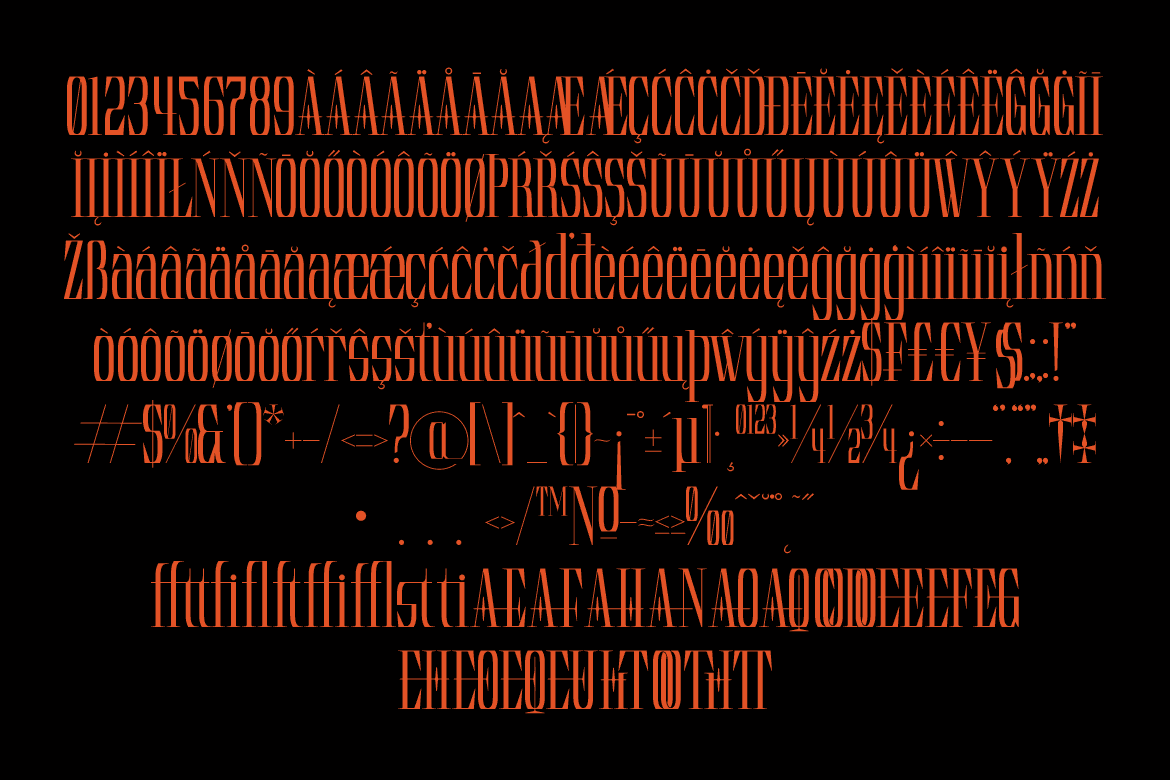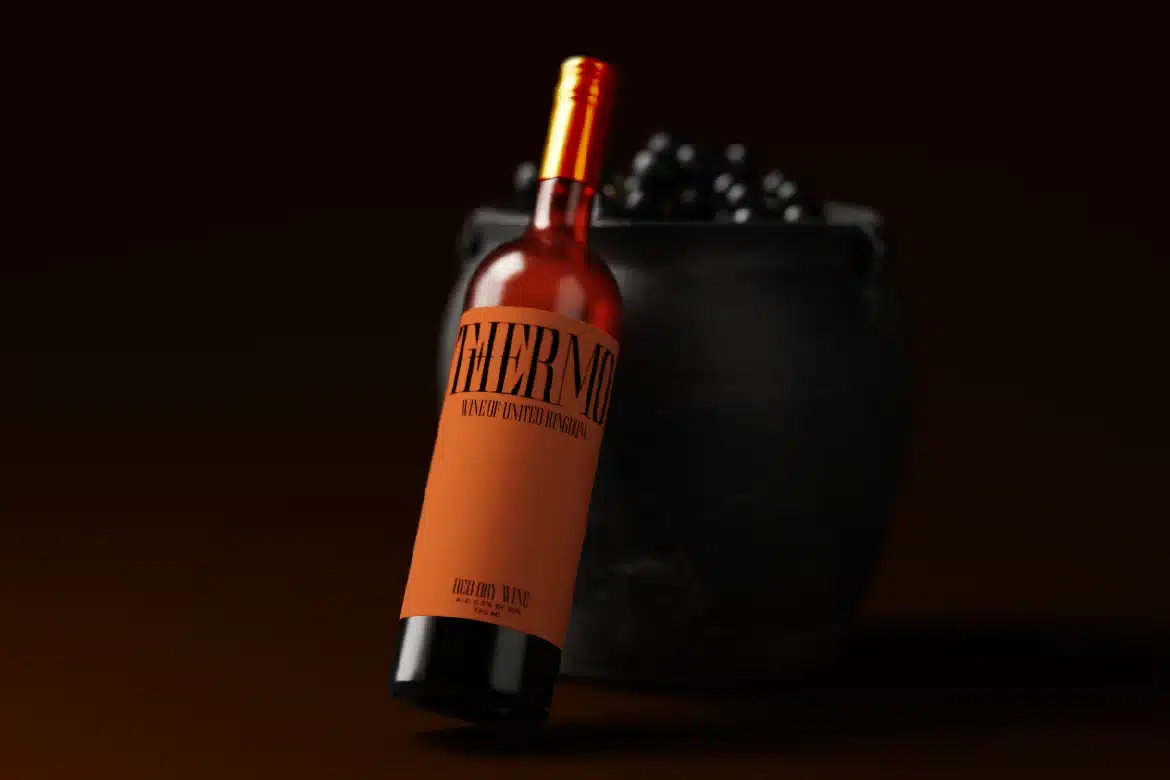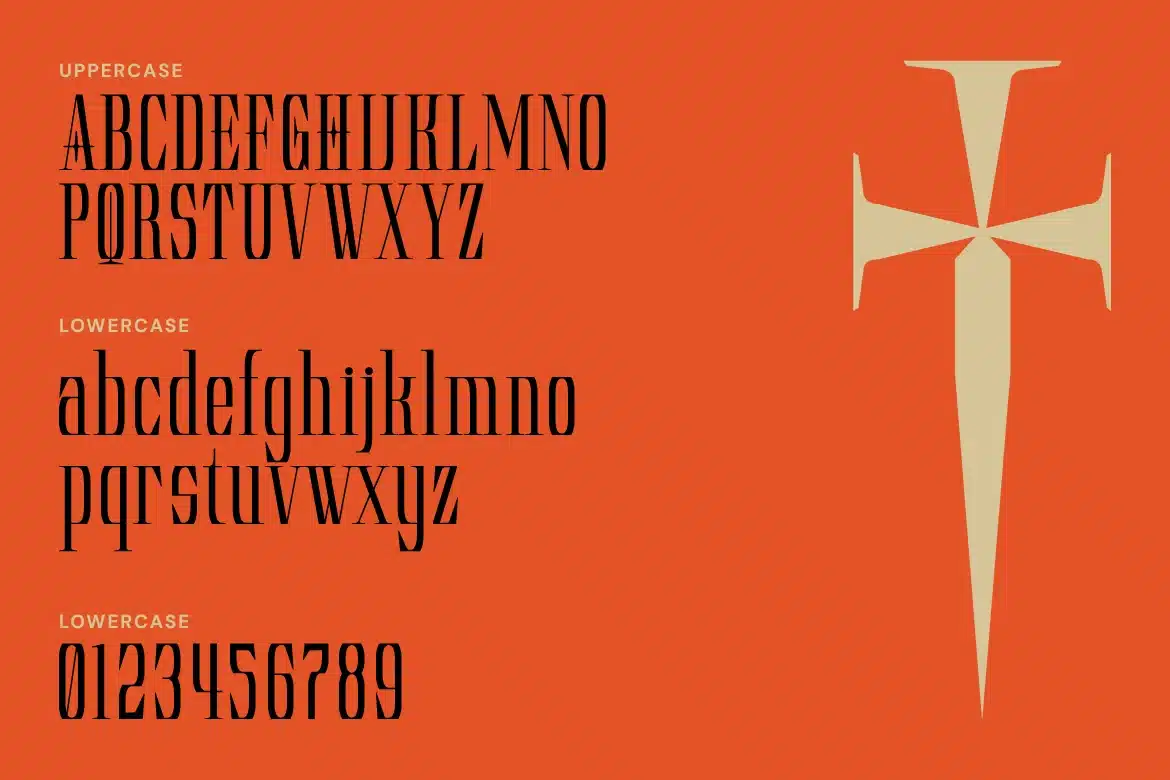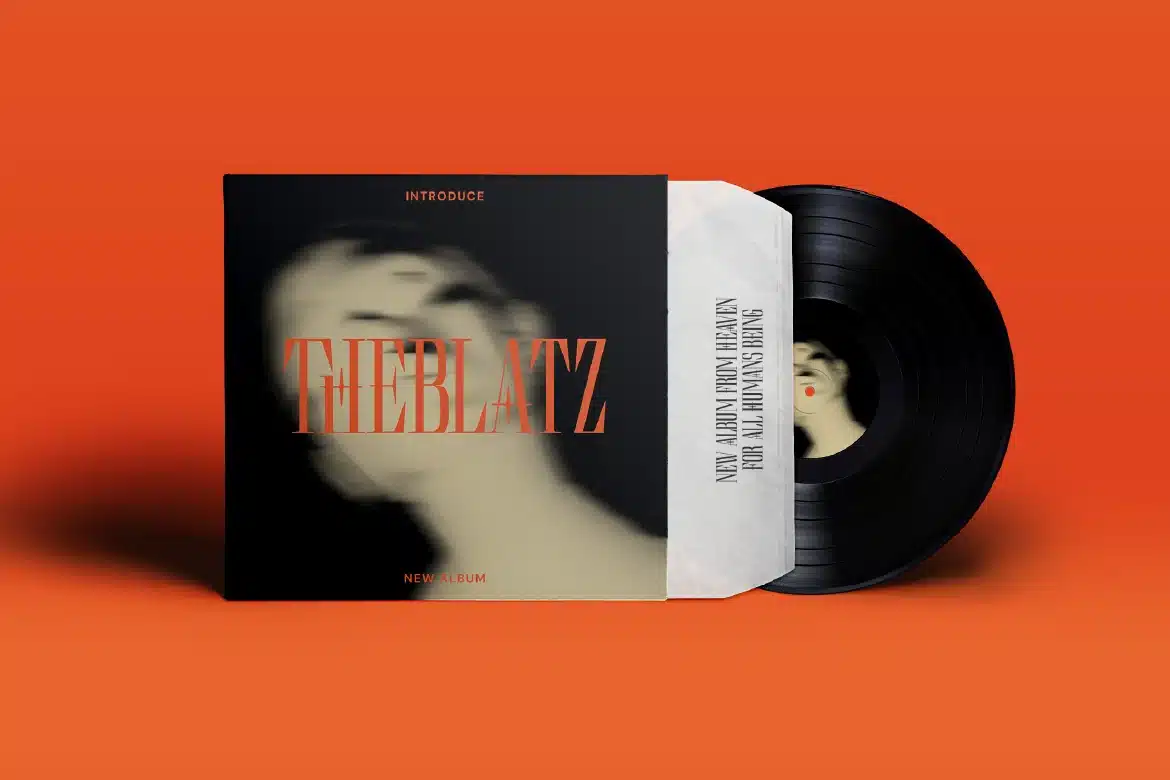
Theome Serif Display Font
Theome is a condensed serif display font that bridges the gap between classic gothic architecture and contemporary high-fashion typography. Designed for impact, its razor-sharp serifs and towering verticality make it the perfect choice for designers looking to add a touch of dark elegance and mystery to their projects.